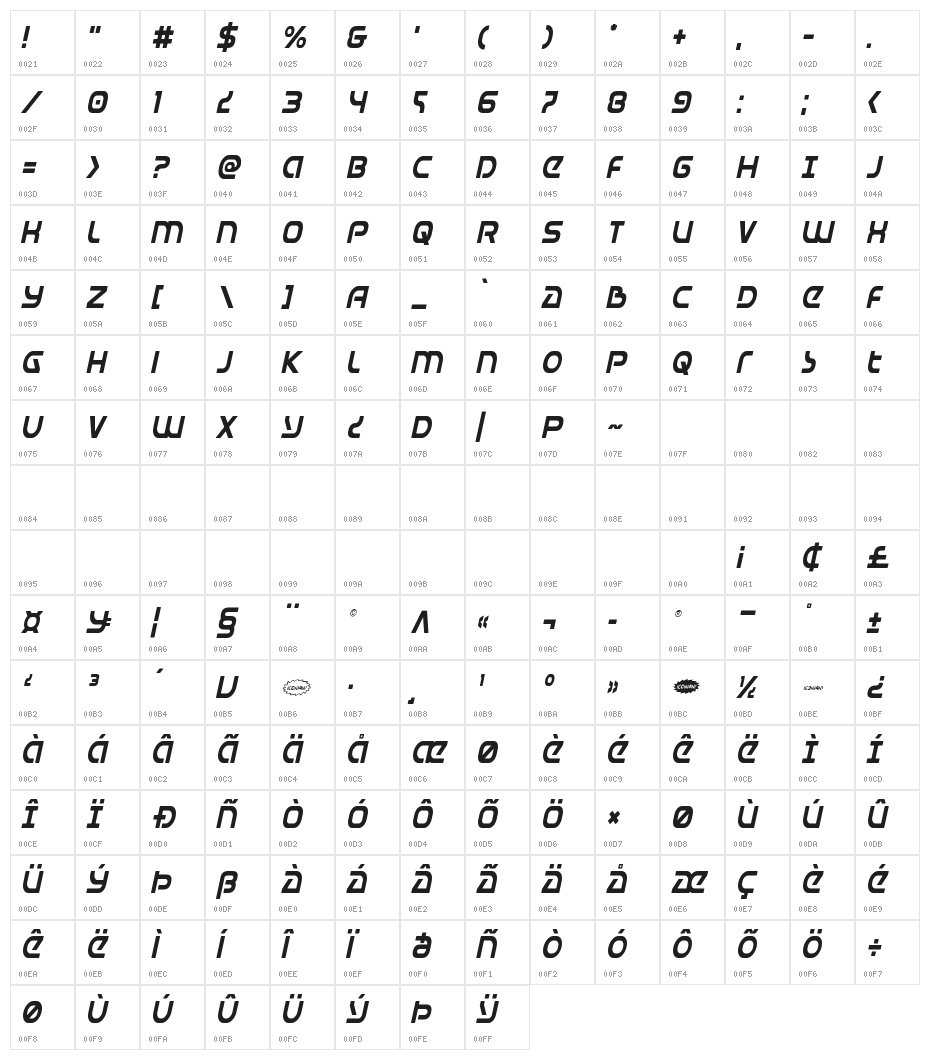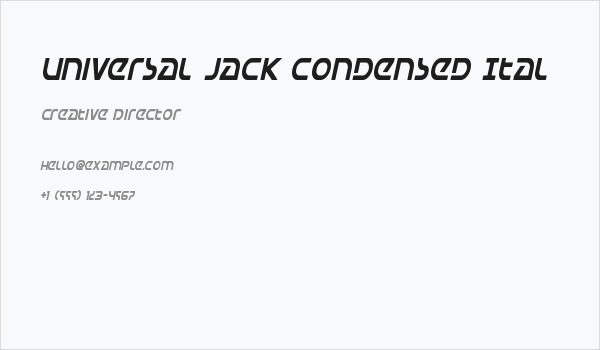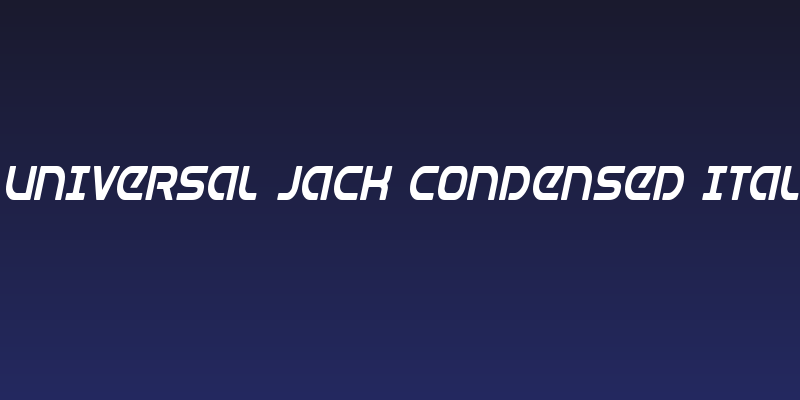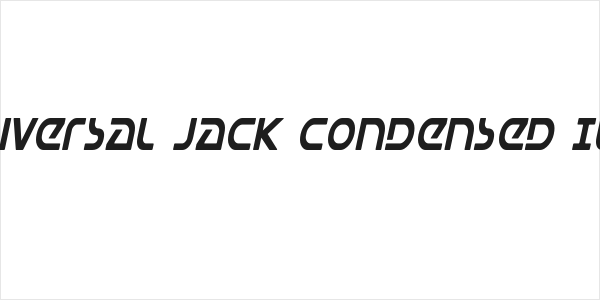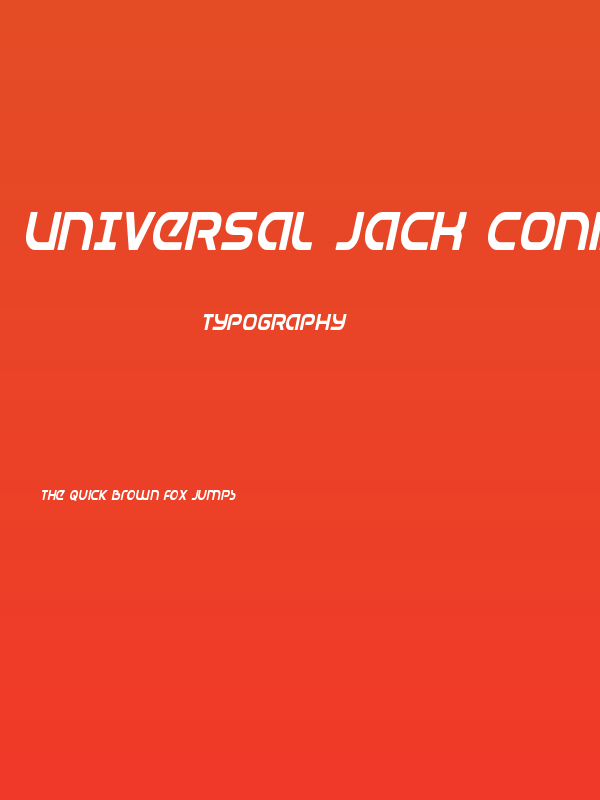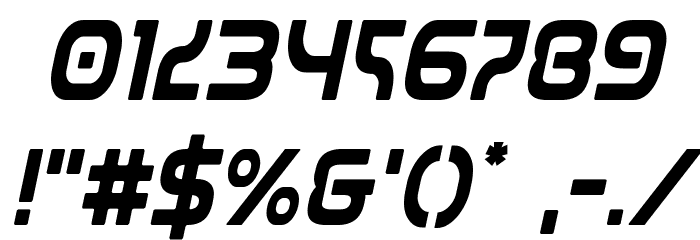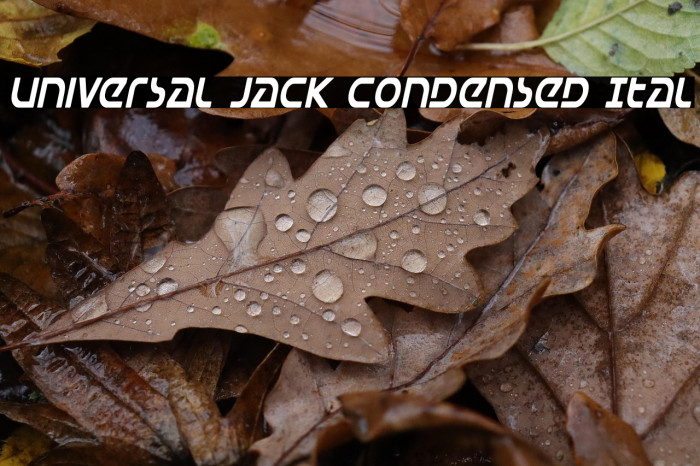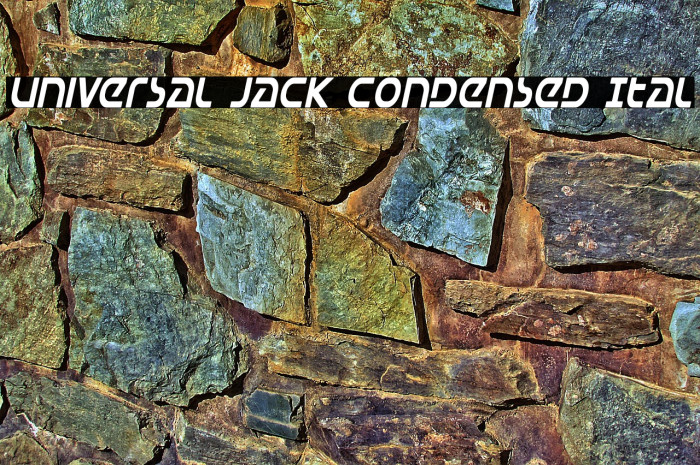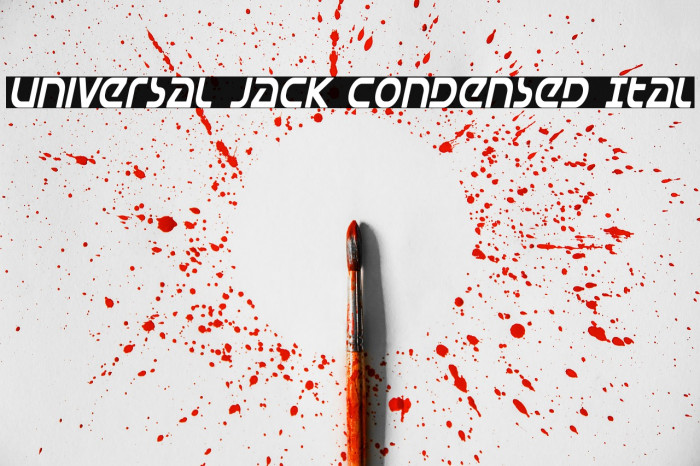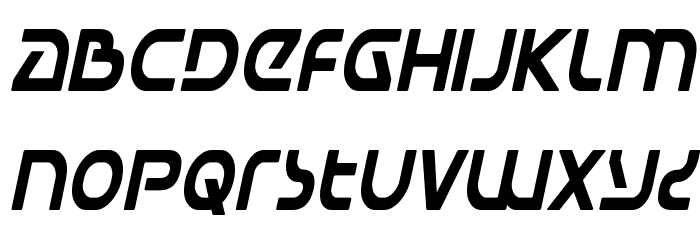
Universal Jack Condensed Ital Font
Universal Jack Condensed Ital Description
This font exhibits a modern and sleek design with a condensed and italicized style. The characters are slightly slanted, giving a sense of motion and dynamism. The strokes are uniform in thickness, providing a clean and consistent appearance. The overall design is minimalistic yet impactful, making it suitable for contemporary and futuristic themes. The numerals and special characters maintain the same stylistic approach, ensuring coherence across all glyphs.
| Use Case | Headlines, Logos, Digital Media |
| Proposed Projects | Ideal for branding, advertising, and digital media projects that require a modern and dynamic look. Suitable for sports branding, tech-related designs, and futuristic themes. |